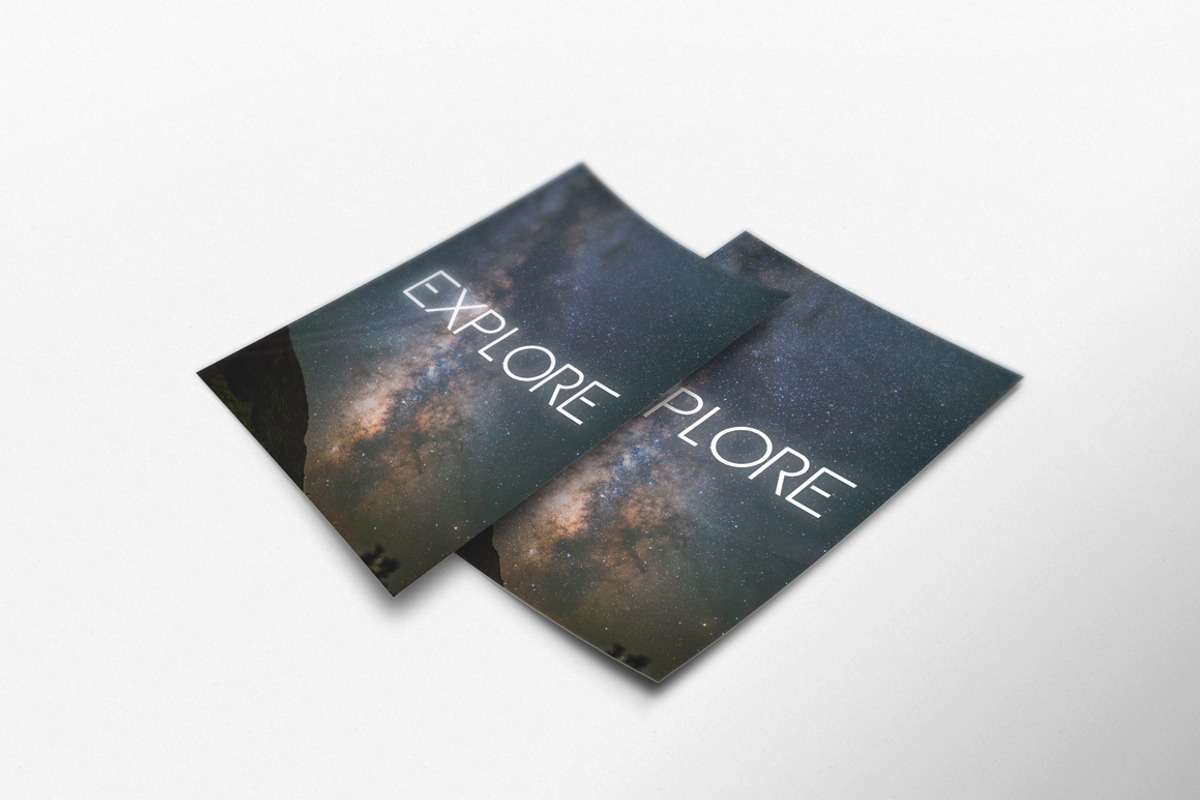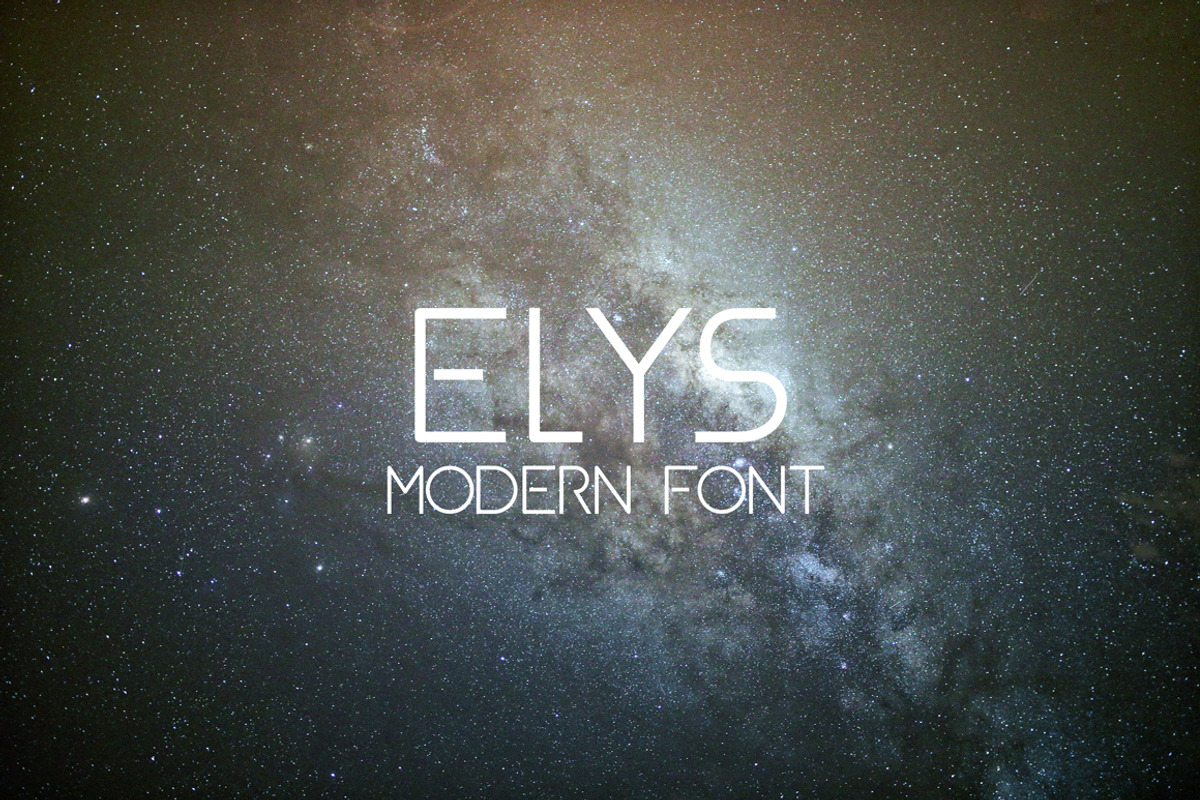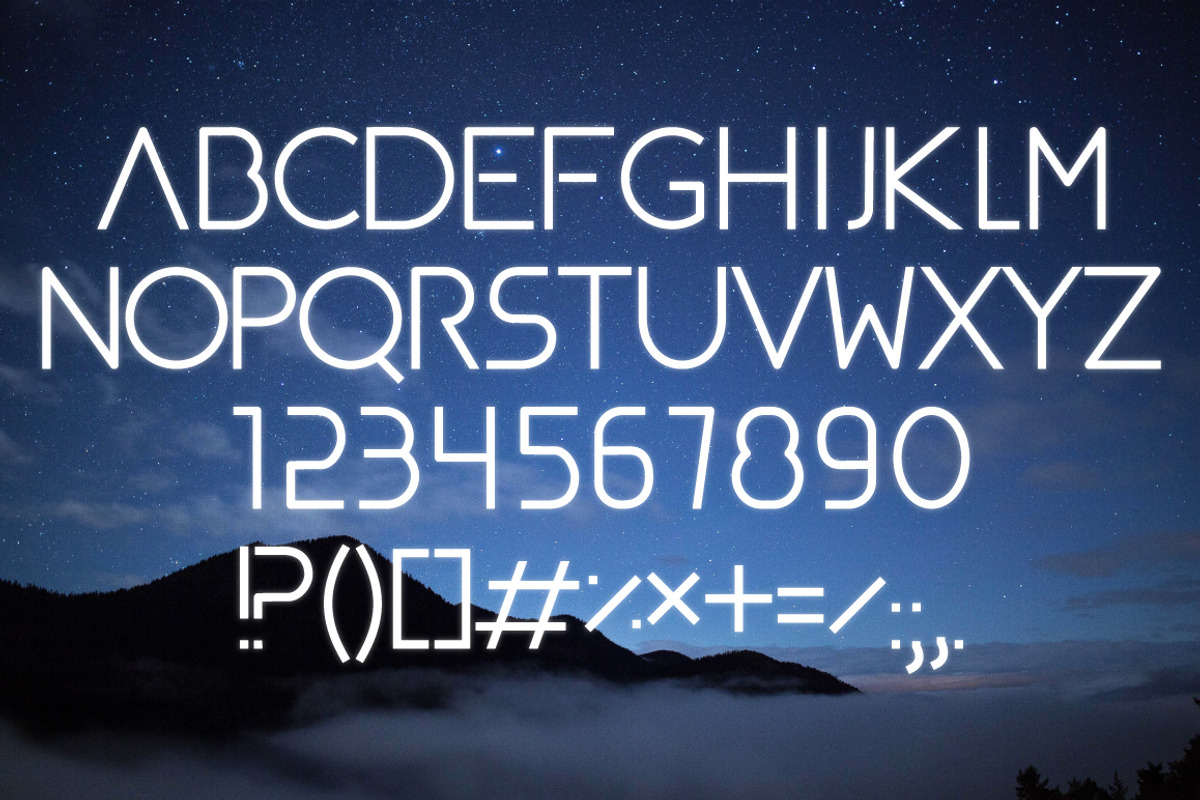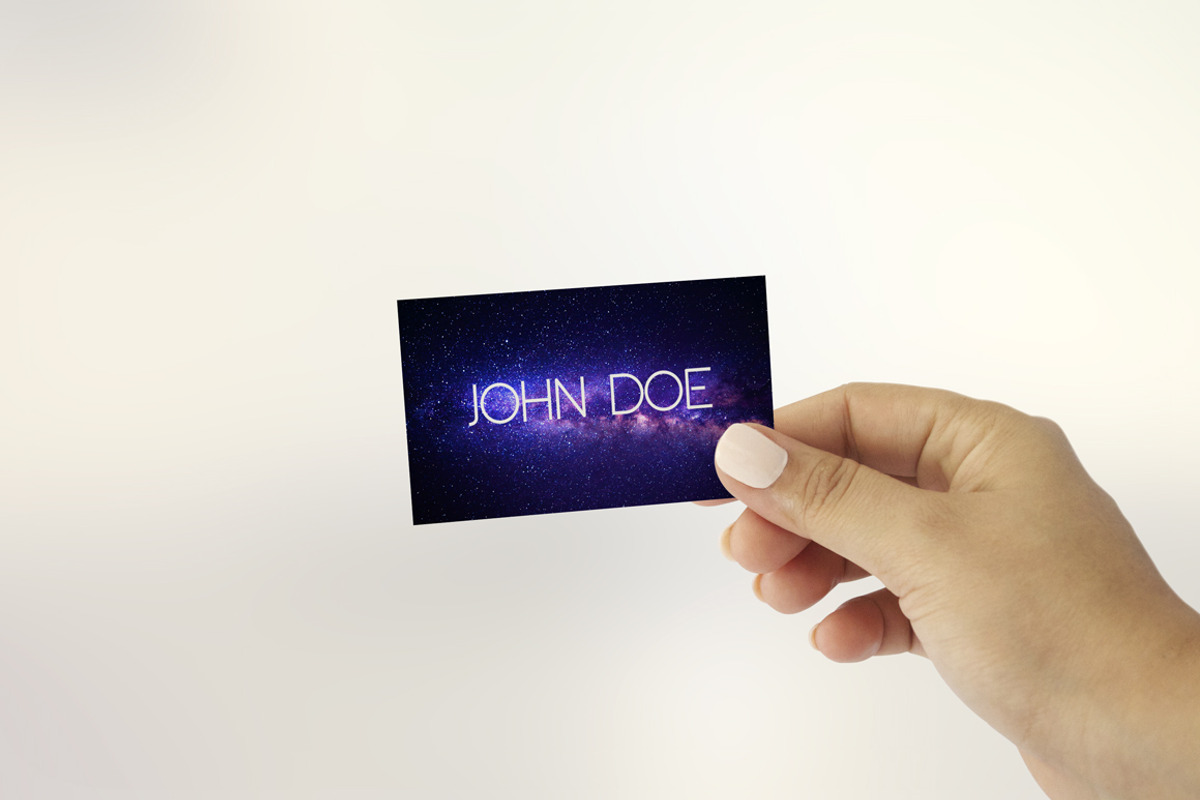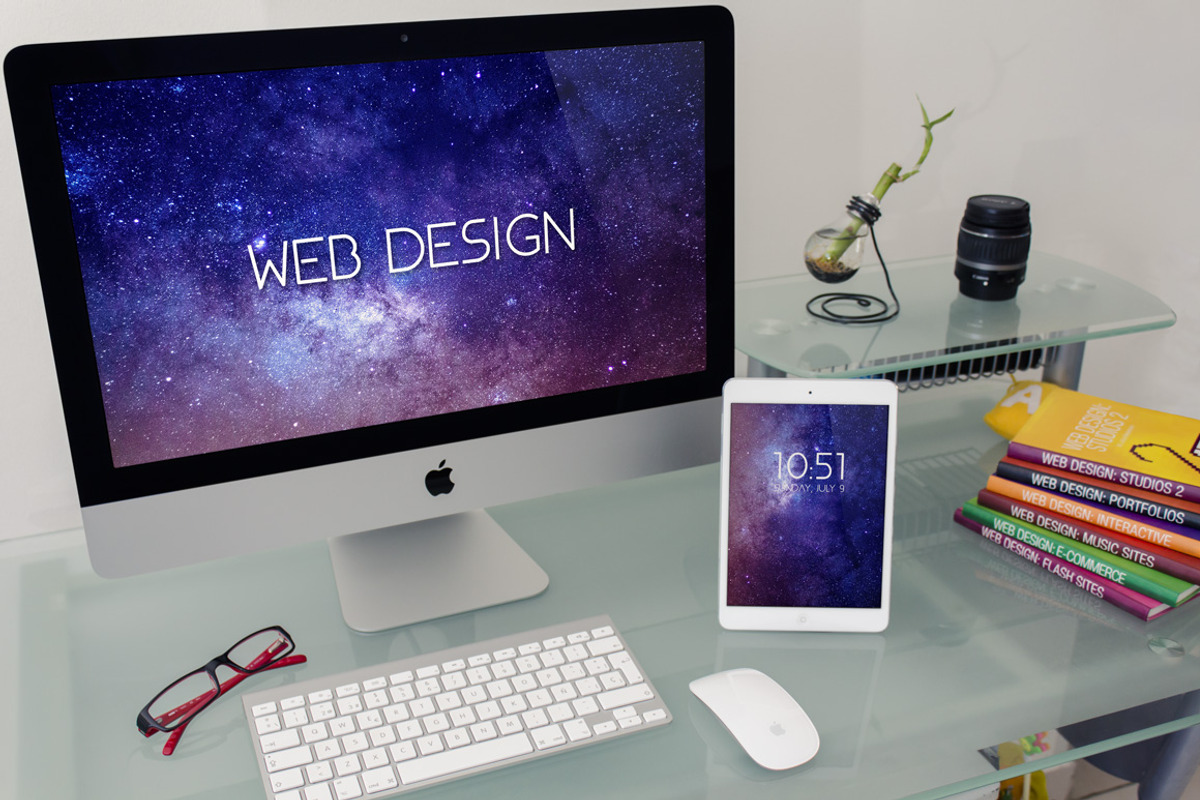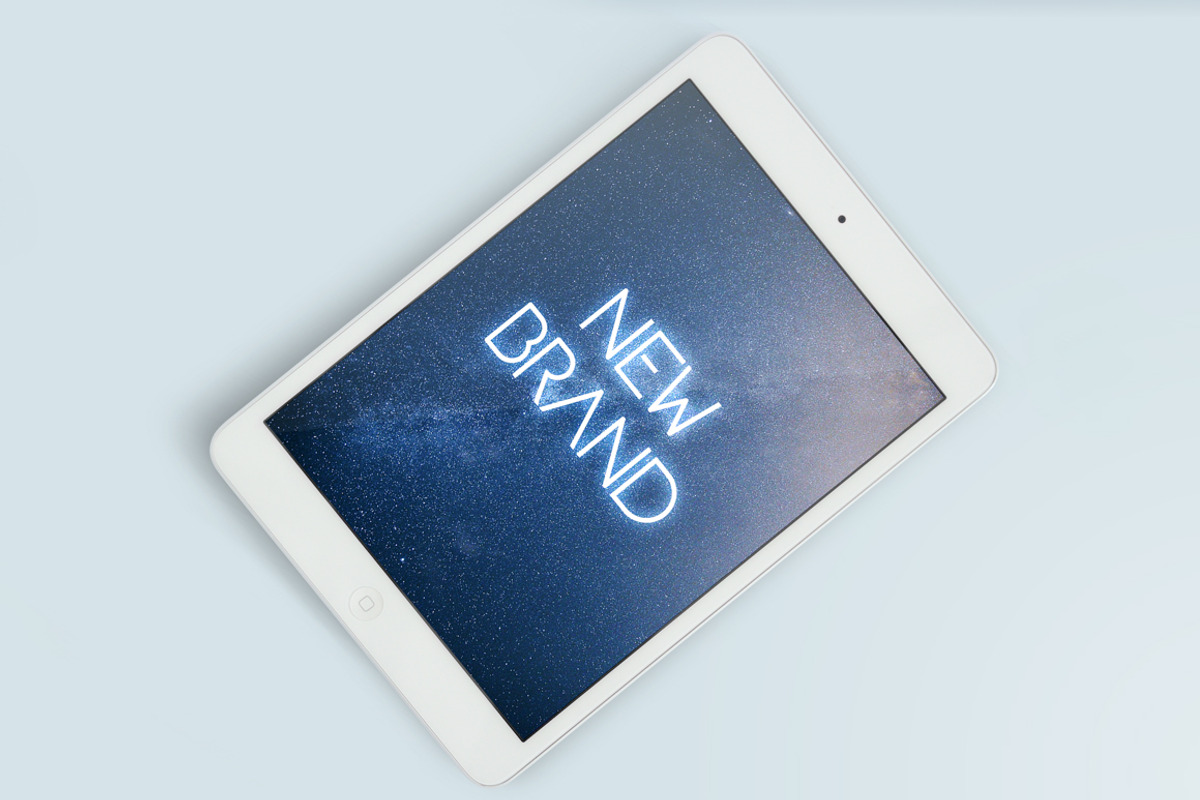
ELYS Modern Font
ELYS Modern Font by Max Letters is a font selected for branding, posters, packaging, typography.
- ELYS contains all capital letters, numbers and some necessary punctuations.
ELYS Modern Font by Max Letters fits naturally into Branding, posters, packaging, typography.